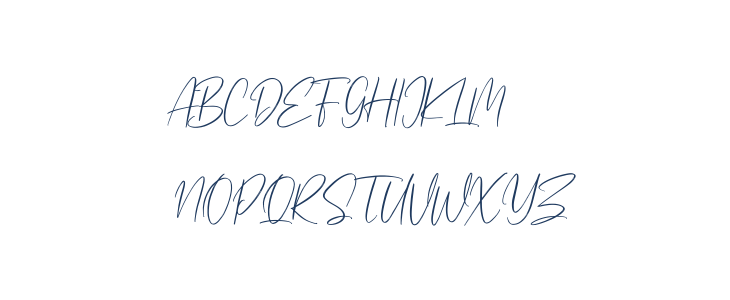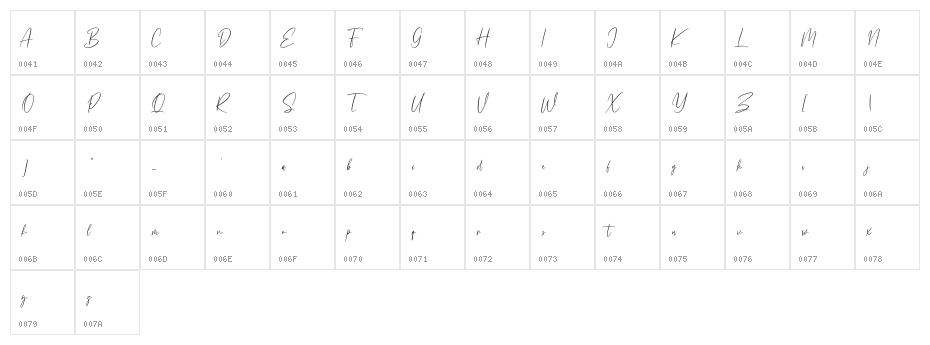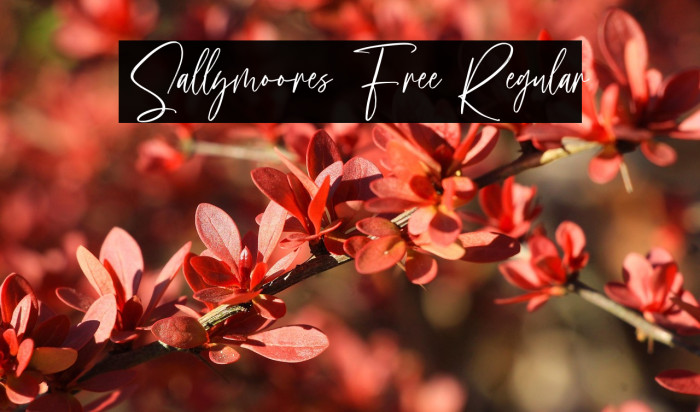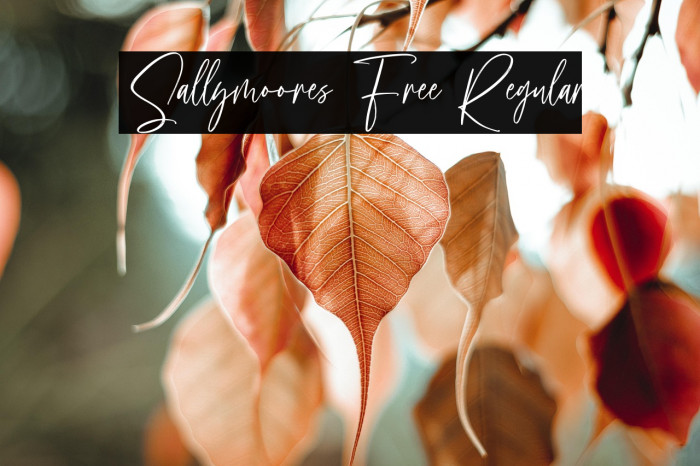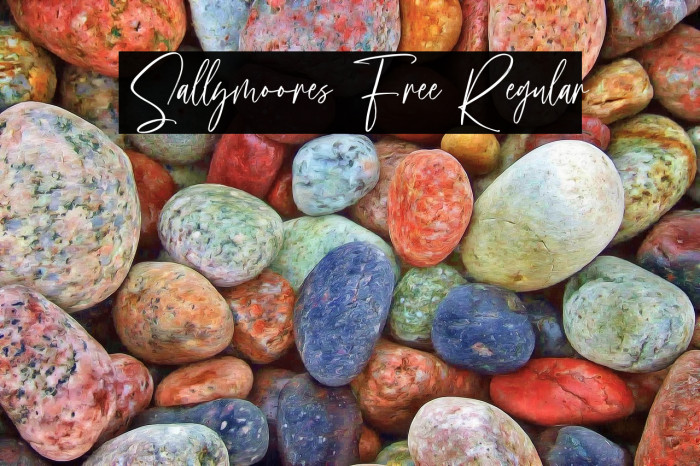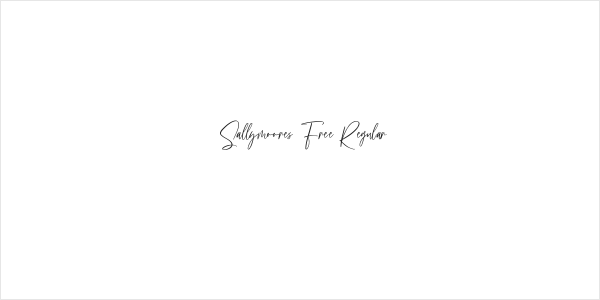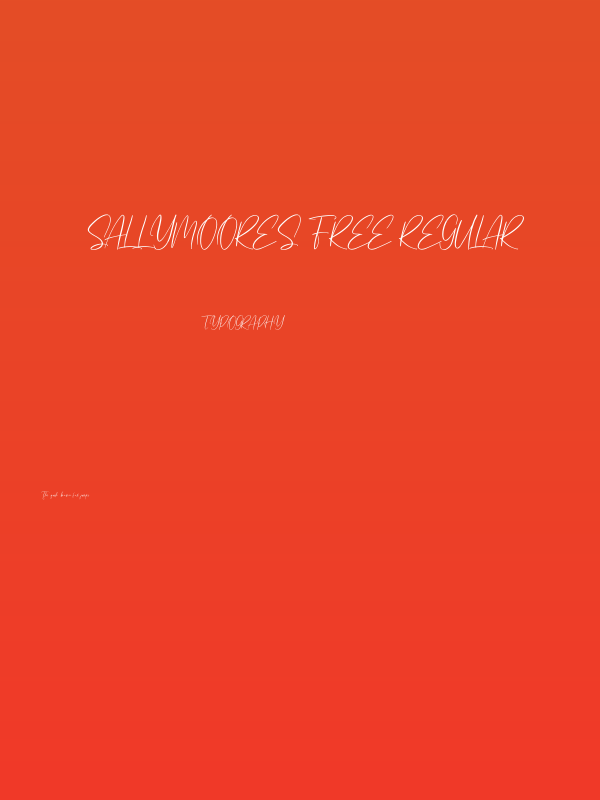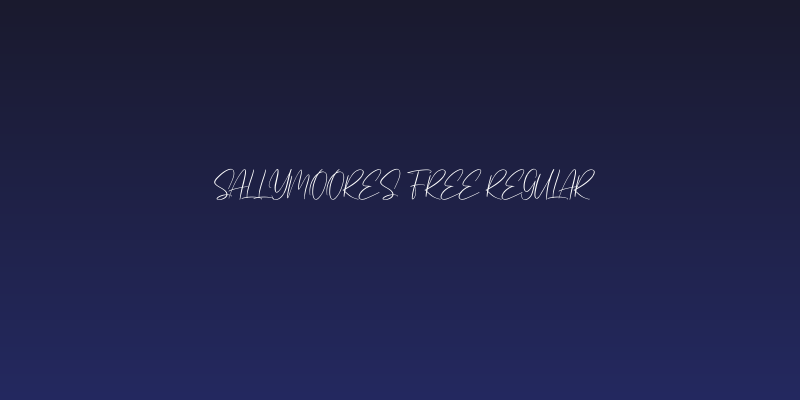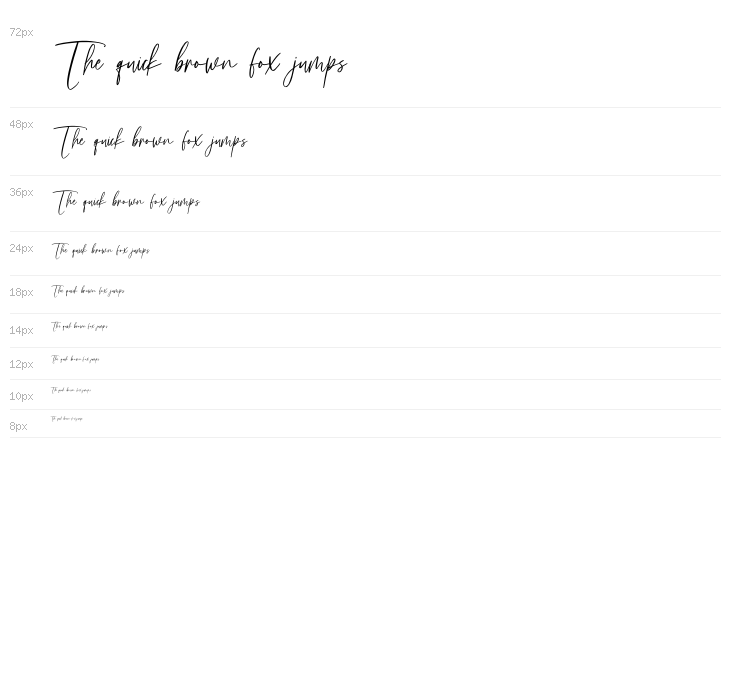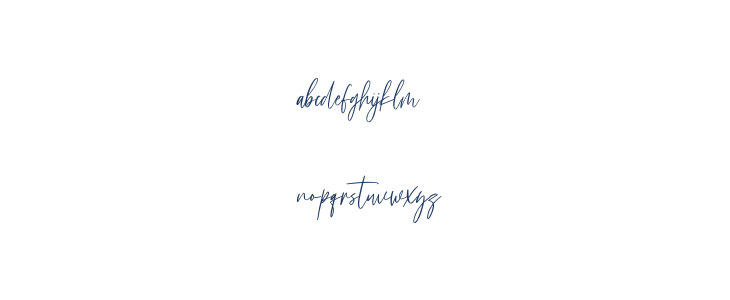
Sallymoores Free Regular Font
Sallymoores Free Regular Description
A loose, flowing handwritten script with tall, narrow letterforms and natural, irregular strokes, giving it an informal and personal feel. The lines are thin with noticeable variation in stroke thickness, and the characters are slightly slanted, mimicking quick penmanship.
| Overall Style | Decorative, Modern, Casual |
| Use Case | Logos, Headlines, Invitations, Social media posts |
| Proposed Projects | Invitations, personal branding, greeting cards, quotes, social media graphics. |